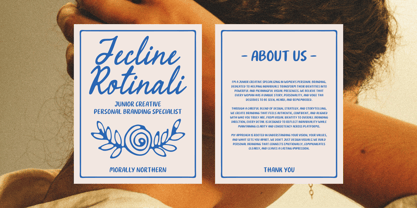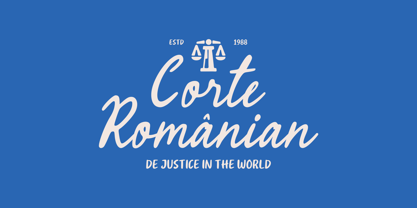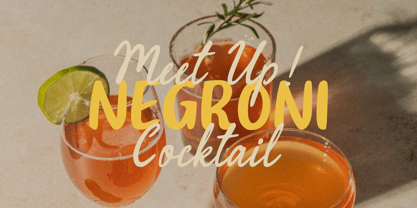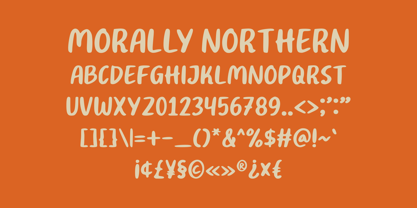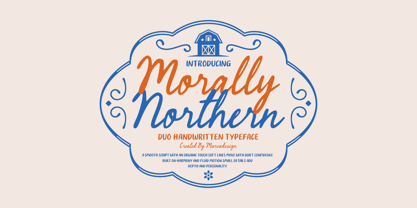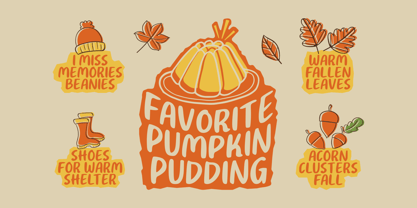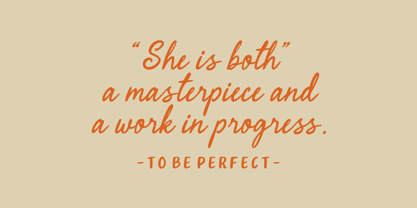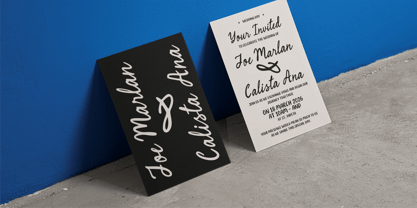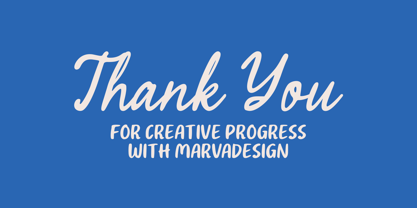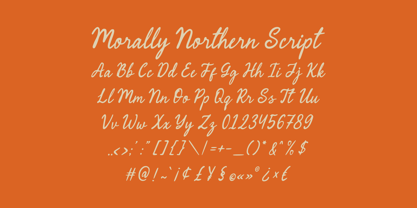
Morally Northern
by Marvadesign
The Morally Northern Font Family was designed by Febrie Setiawan and published by Marvadesign. Morally Northern contains 2 styles and family package options. More about this family
Morally Northern is a charming duo handwritten typeface that blends expressive script elegance with a warm, approachable sans style. The script carries a natural, flowing rhythm with soft curves and smooth connections, giving it an effortless handwritten feel that feels both personal and refined. Its strokes move with quiet confidence slightly imperfect in a way that adds authenticity and emotional warmth. Paired with a clean, rounded companion font, it creates a balanced contrast that enhances readability while maintaining a cohesive, friendly character. Inspired by rustic charm and nostalgic simplicity, Morally Northern evokes a sense of comfort, storytelling, and human touch. The subtle irregularities and organic shapes bring life into every letter, making it feel intimate and genuine rather than mechanical. Whether used in branding, invitations, packaging, or editorial layouts, this typeface delivers a soft yet confident visual voice capturing a mood that is both heartfelt and timeless, with a hint of playful personality.
Designers: Febrie Setiawan
Foundry: Marvadesign